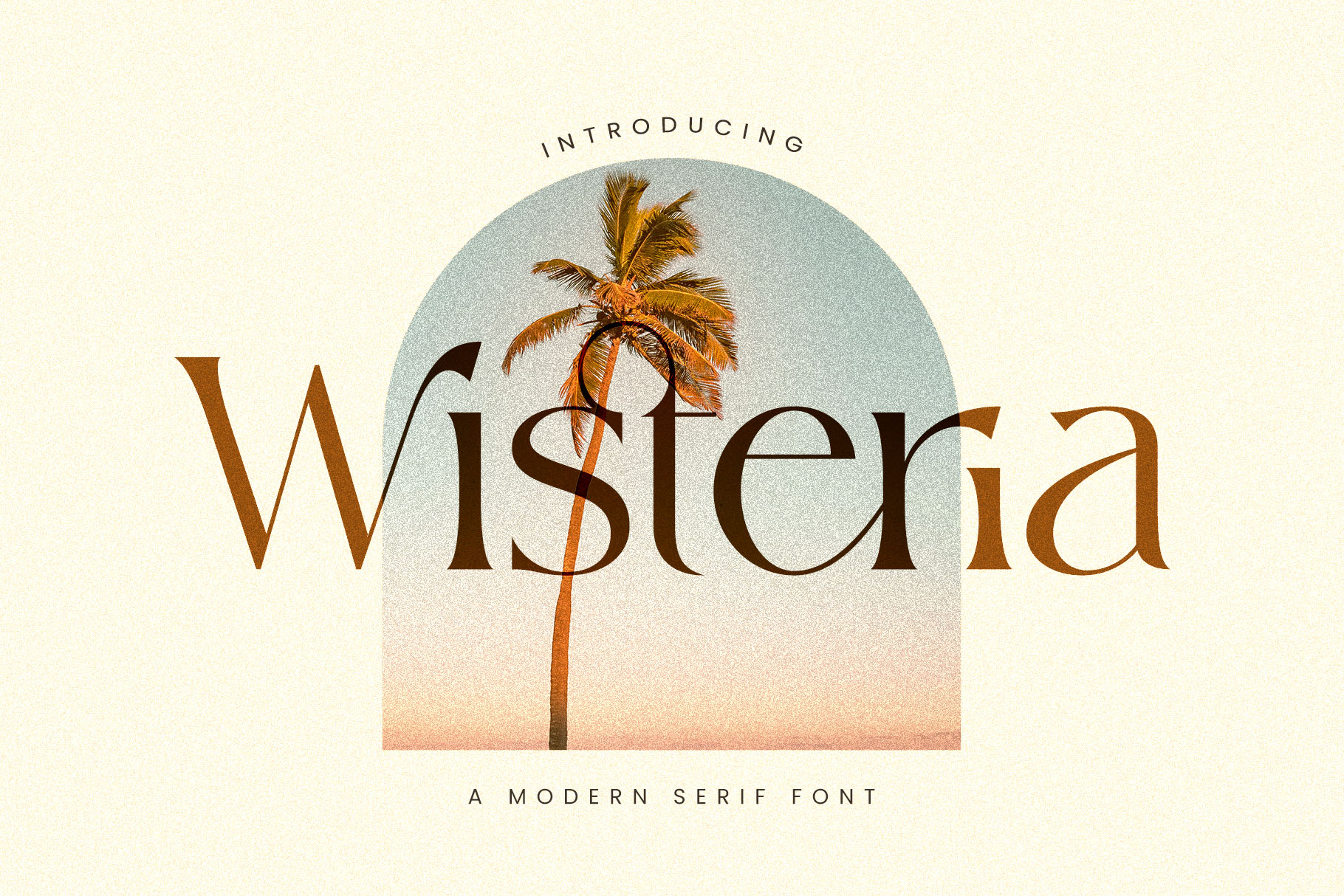
Wisteria || Ligature Serif Font
About Wisteria || Ligature Serif
Introducing the new Wisteria Ligature Serif!!! Wisteria is a elegant and classy serif typeface – This font is both modern and nostalgic and works great for logos, magazine, social media. Already matched up and ready to be used together for your next design! For those of you who are needing a touch of elegant, stylish, classy, chic and modernity for your designs, this font was created for you!